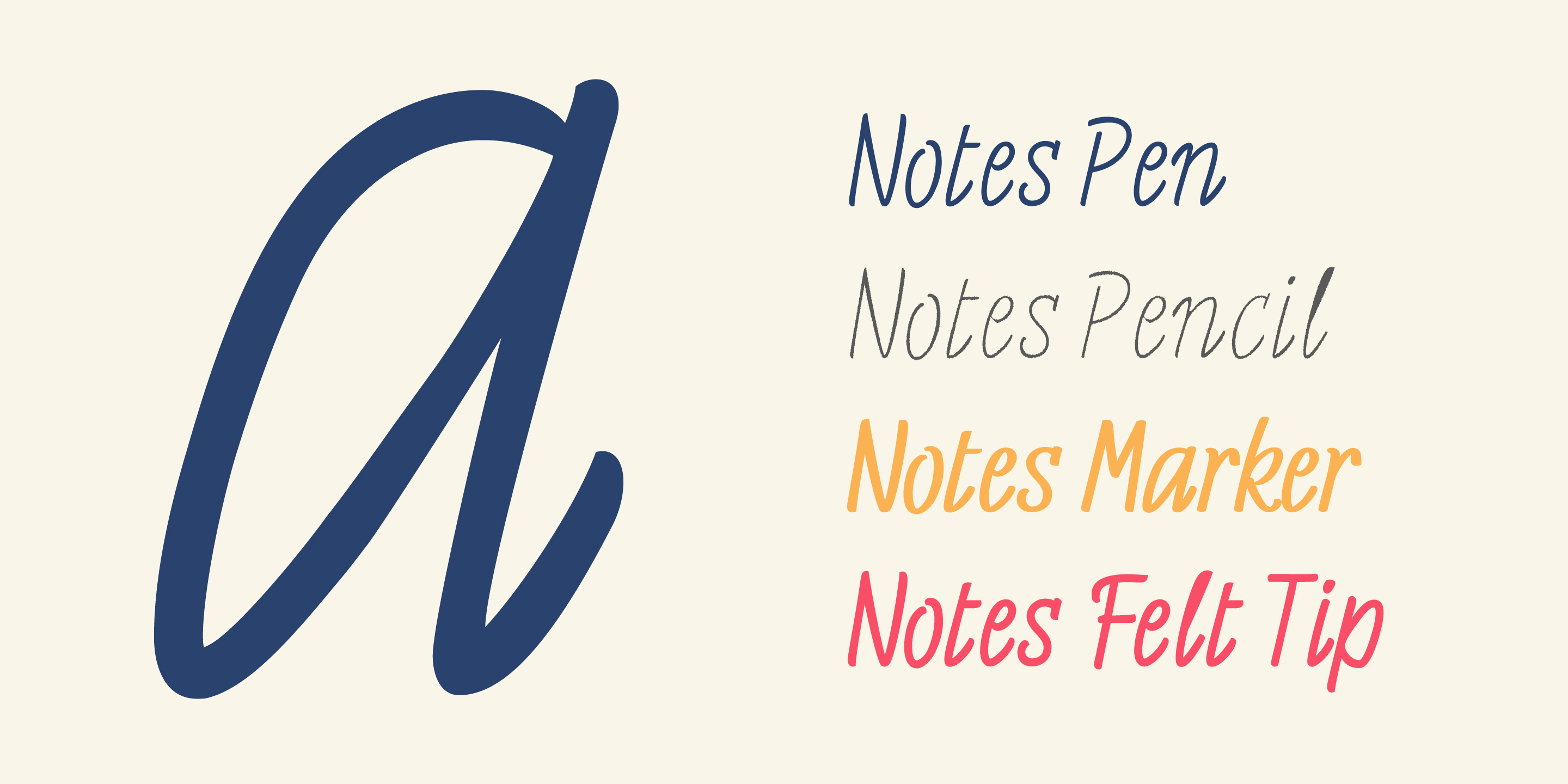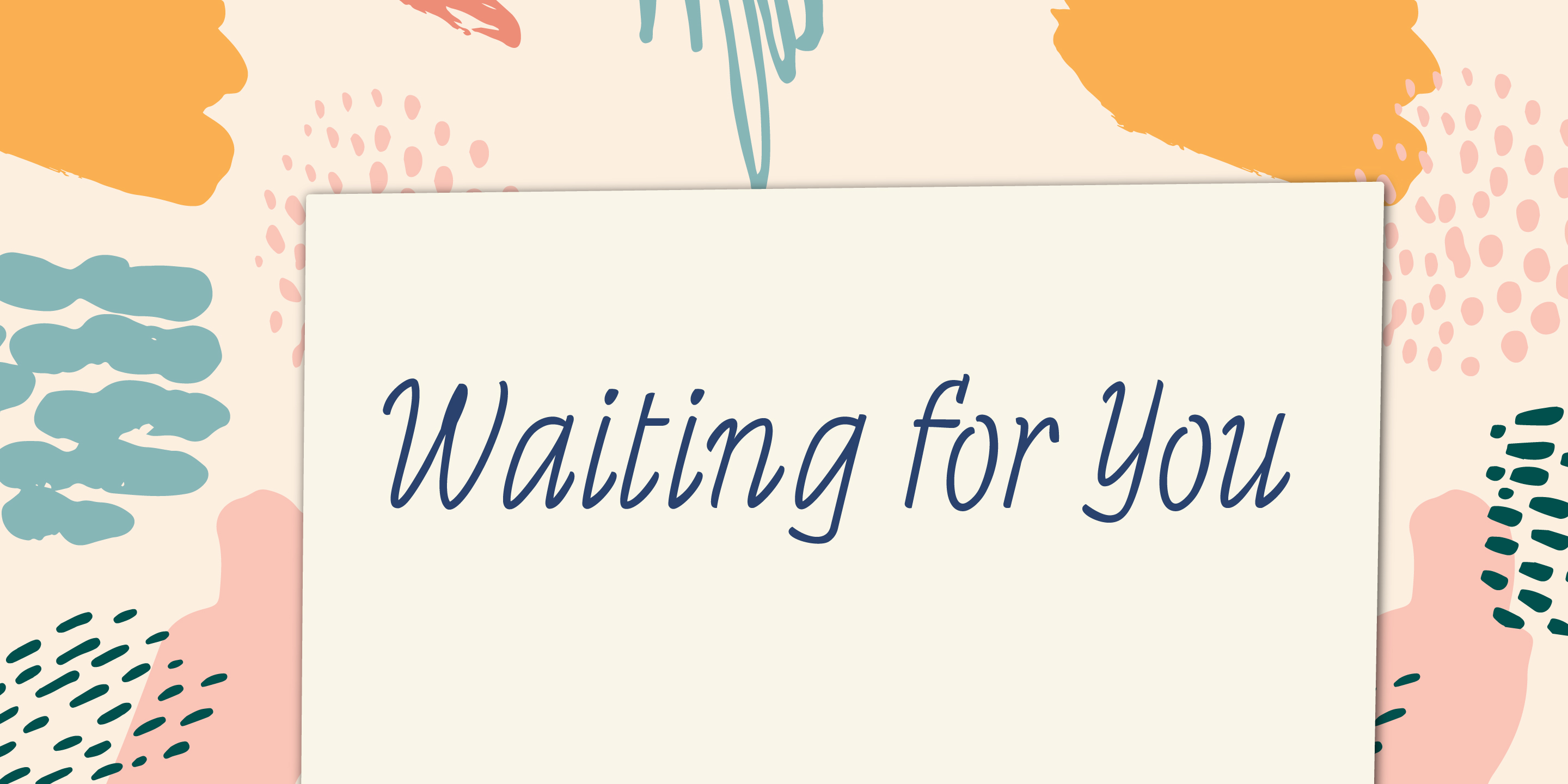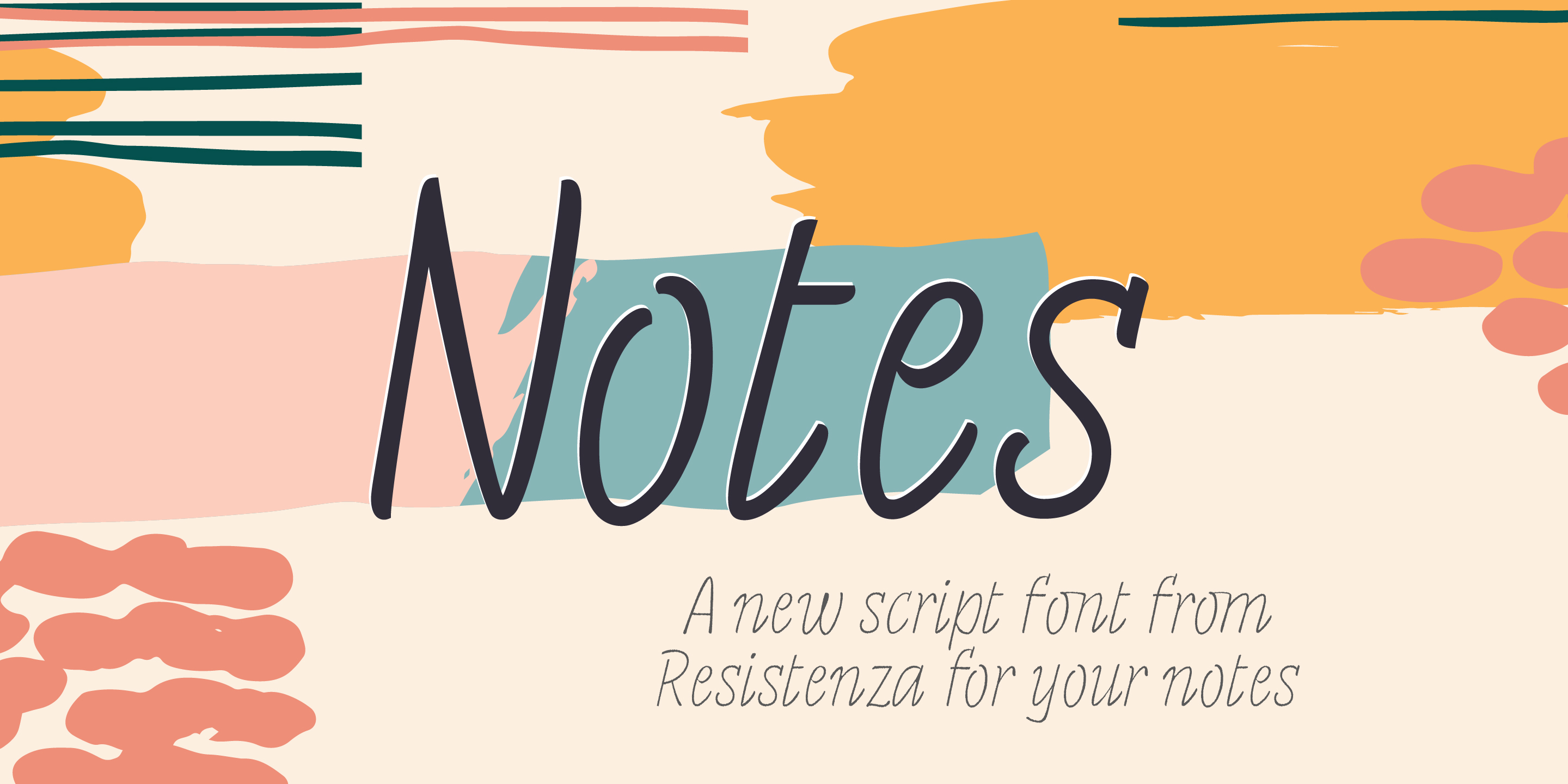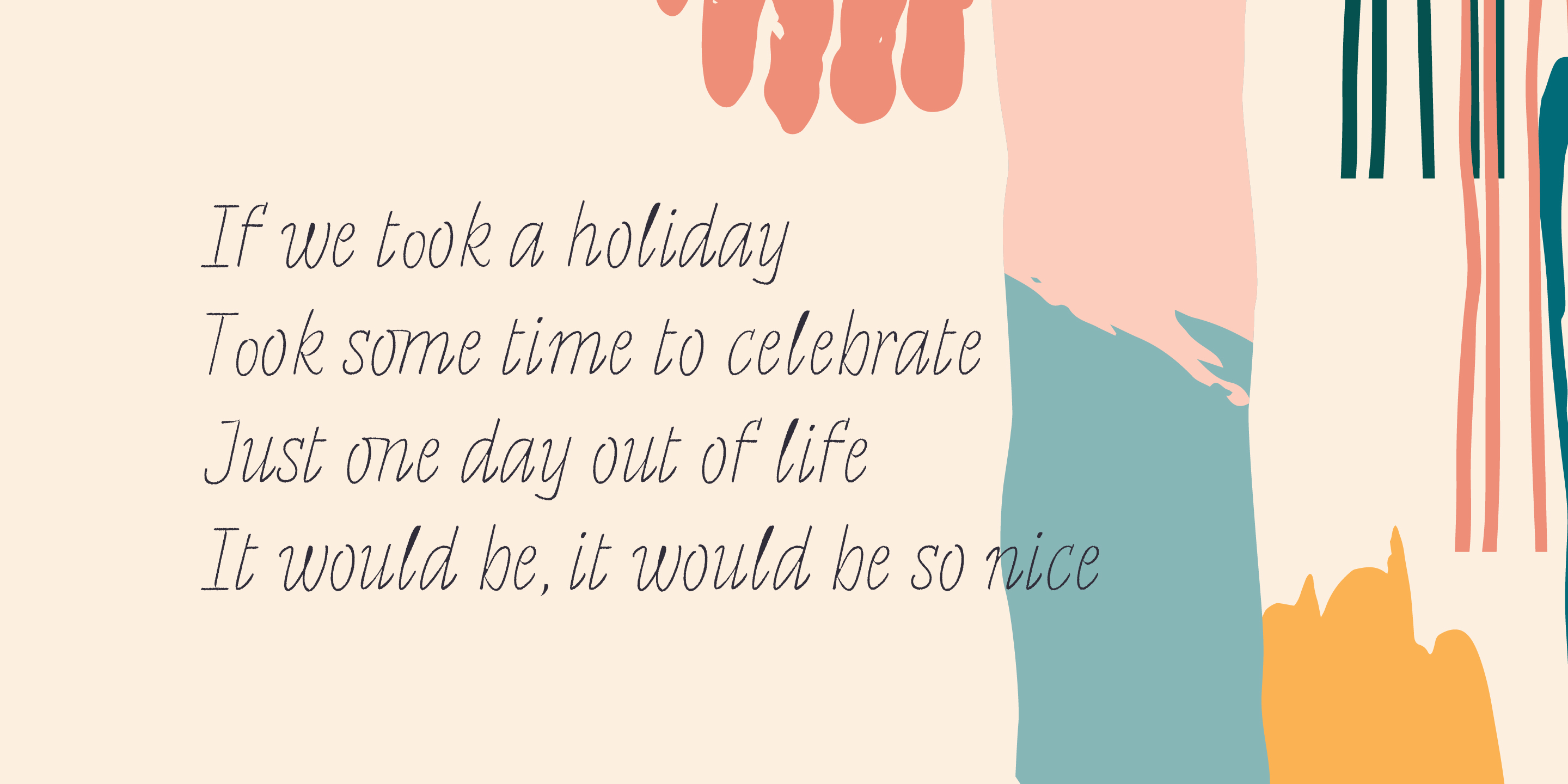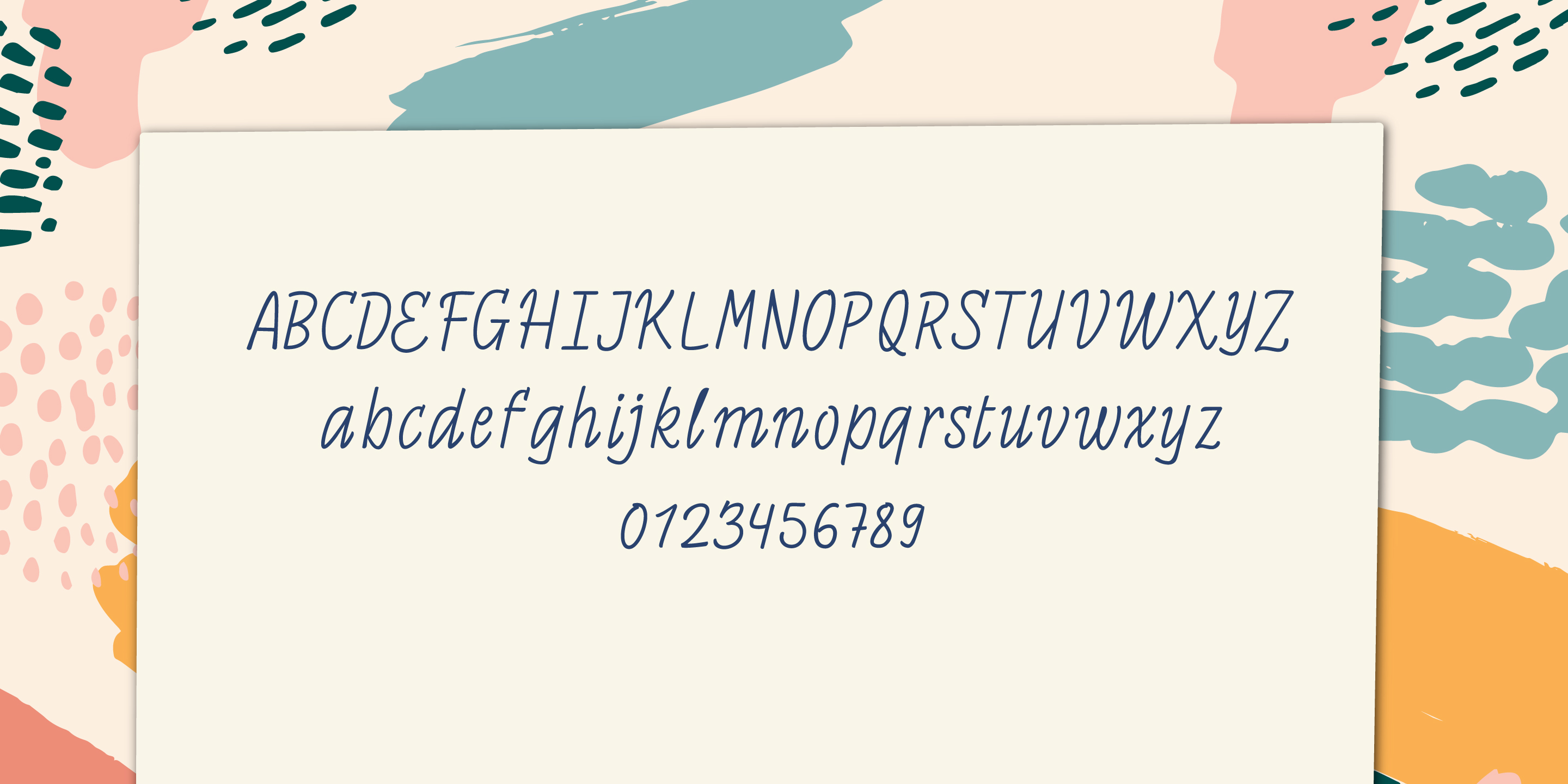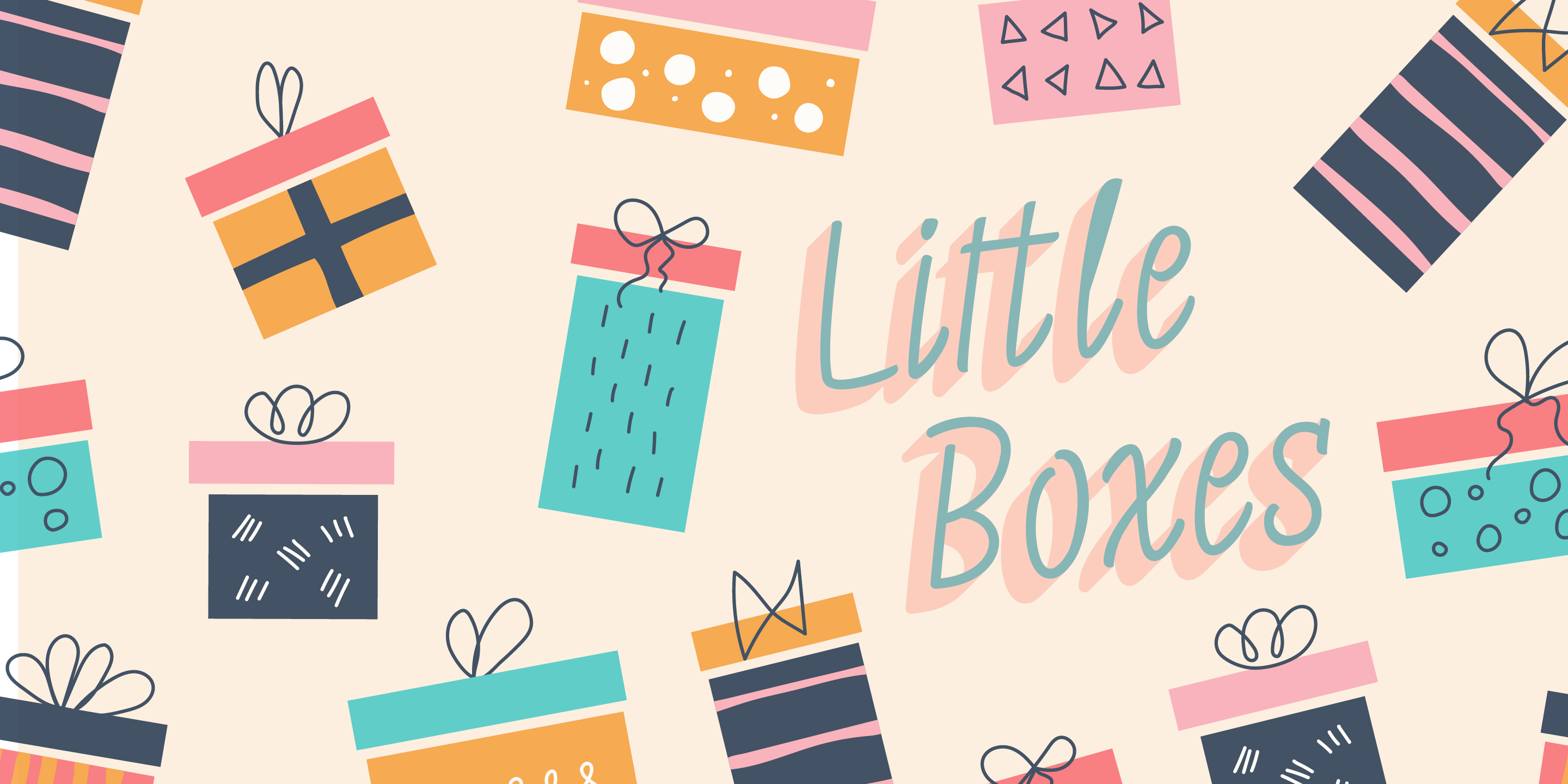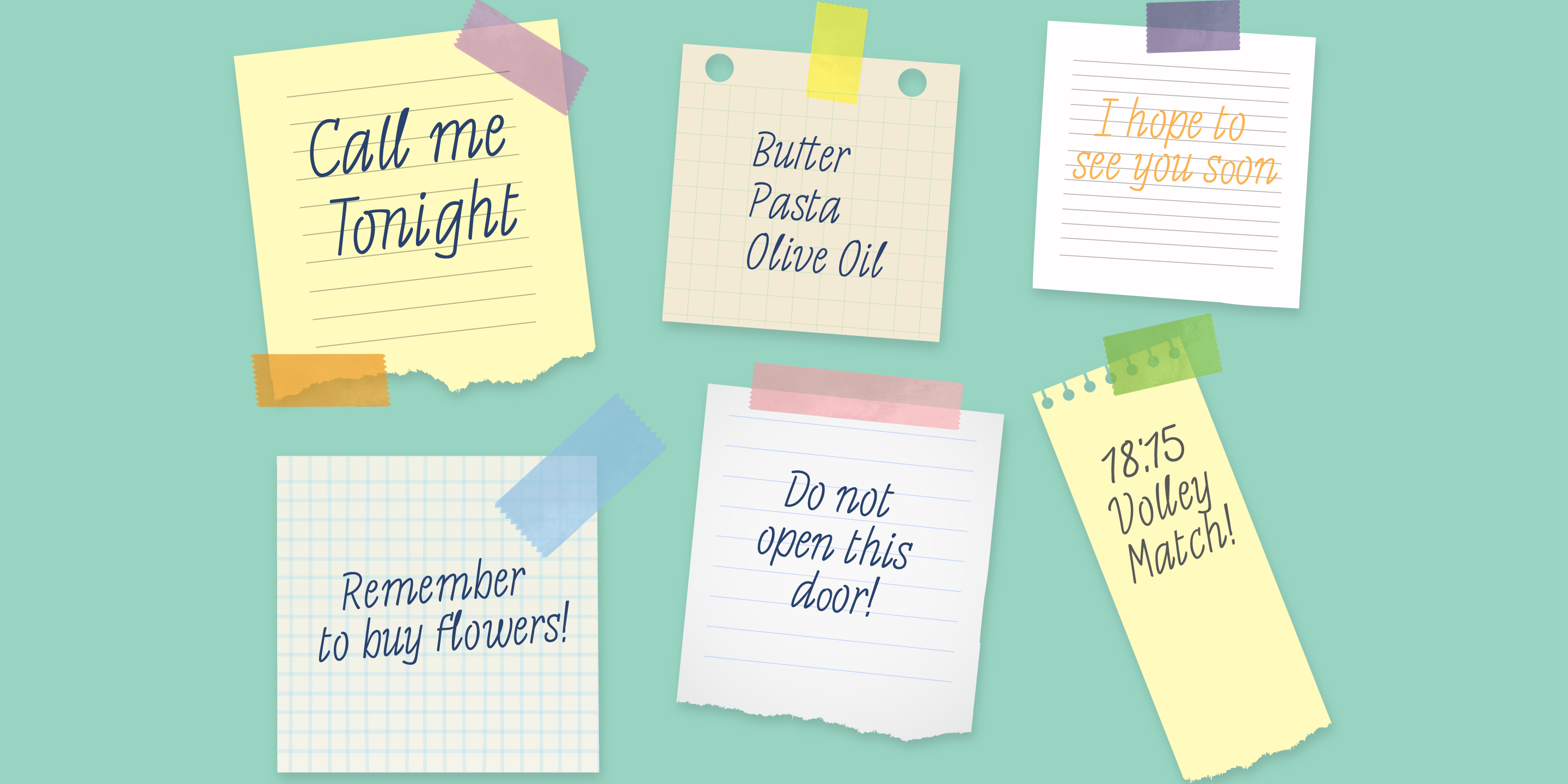
Handwritten font for your notes
Notes
Designed by Resistenza Type FoundryNotes Is a handwritten-Italic font style, casual and fresh. Our recipe for this project is a perfect blend of typography and handwriting.
Works well in small sizes and has several ligatures. Notes Family has many cuts, Pen, Pencil, Marker and Felt Tip.
This font family can be used for many purposes like publishing, quick notes, adding captions, signage.